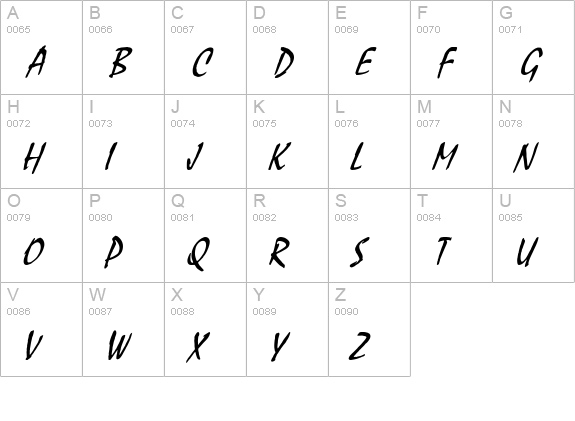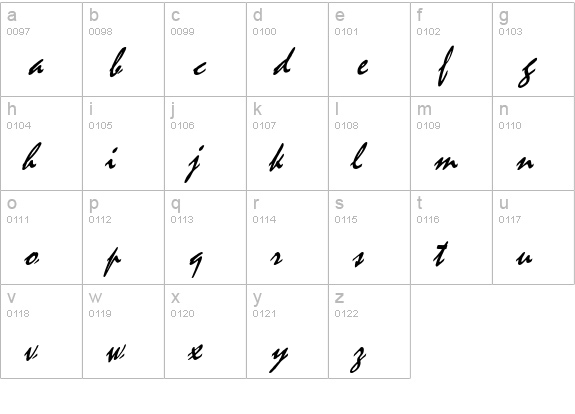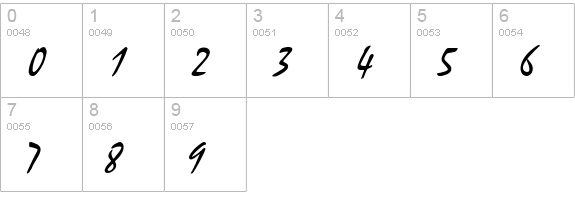
Mystic Condensed Italic is a distinctive, condensed-width, italic variant in the Mystic typeface family \xE2\x80\x94 well suited to design and typography projects.
Mystic Condensed Italic font is a captivating and enchanting typeface that exudes a sense of mystery and elegance. Its sleek and flowing design adds a touch of sophistication to any project, making it perfect for branding, editorial design, and more. The italicized style of Mystic Condensed Italic font adds a dynamic and artistic flair, making it stand out from the crowd. Best of all, Mystic Condensed Italic font is available for free download at FontsMarket.com. This means you can easily access this unique and stylish font to elevate your designs without any cost. Don't miss out on the opportunity to add a touch of mystique to your projects with Mystic Condensed Italic font, now just a click away for free at FontsMarket.com.